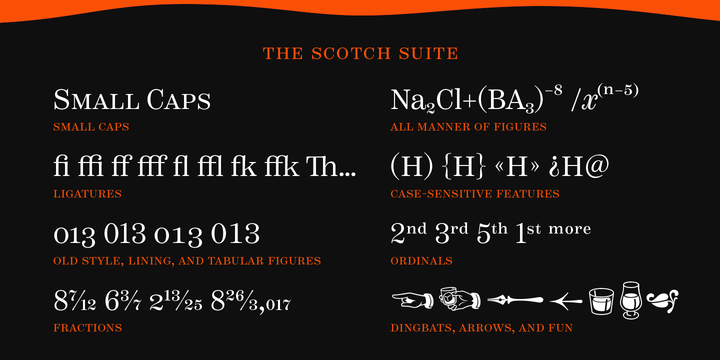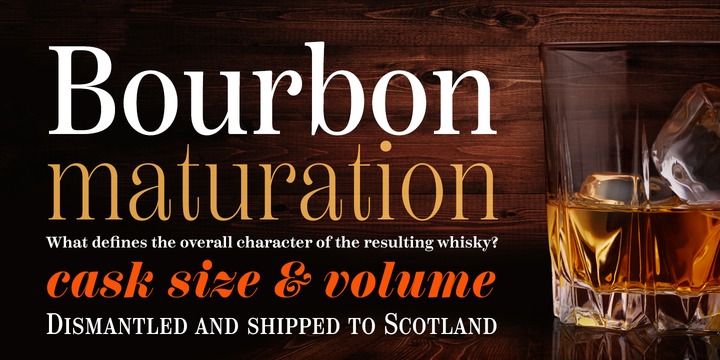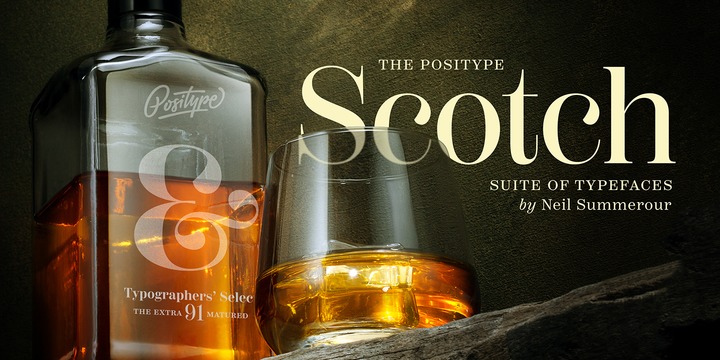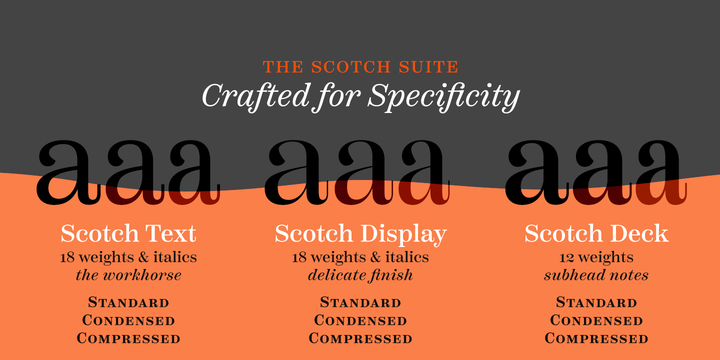
Clean, crisp, rational, familiar, modern serifed. Positype Scotch reaches back to history just enough to produce something warm and easy on the eyes.
No corners were cut, no quick tricks this type suite was drawn for specificity: Text, Display, and Deck ALL in 3 widths that now include Condensed and Compressed.
Each unique, each inter-connected, each part of the whole. Scotch Text is offered in 6 weights with matching true italics. Drawn for economy and an easy read, the family is a workhorse for long-passage text settings.
4 sets of numerals, well-proportioned small caps, and a plethora of extras round out each font.
More Scotch Display is not just a thinner version of Scotch Text wrapped in a higher contrast.
Display sports shorter ascenders and descenders, a unique footprint, great contrast, and a more folded, calligraphic italics.
Display subtly oozes sophistication and provides an attractive, exhuberant companion to Scotch Text.
Scotch Deck rounds out the offering by choosing to be specific to its offering.
Deck utlitizes traits and proportions shared between Text and Display, but alters its overall mass to balance out the needs for settings that require subheadlines, callouts and other similar uses.
Essentially, something not so high-contrast and not so stress dense that works great for middle-sizes.